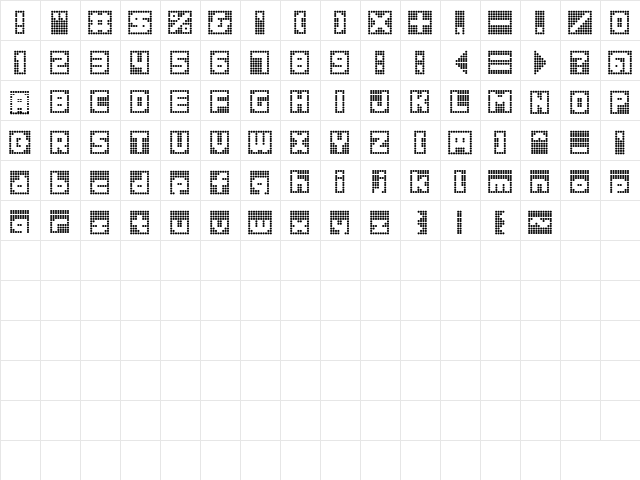
MW POLKA2 Regular
Design Context for MW POLKA2 Typeface
MW POLKA2 is a composed and adaptable typeface that performs quietly and consistently across a wide range of design contexts.